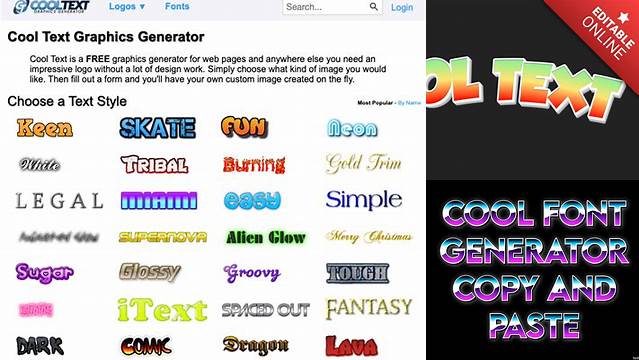
Free Font Word Generator: Create Cool Text Online
Hey guys! Ever wanted to create some seriously cool text for your projects, social media, or just for fun? A free font word generator is exactly what you need! These nifty tools allow you to transform ordinary text into eye-catching designs with just a few clicks. Let's dive into the world of free font word generators and explore everything you need to know to make your text stand out.
1. Understanding Free Font Word Generators
So, what exactly is a free font word generator? Essentially, it's an online tool that lets you type in any text and then apply various fonts, styles, and effects to it. Think of it like a digital font playground where you can experiment with different looks until you find the perfect match for your message. These generators are super user-friendly, often requiring no design skills whatsoever. You just type, click, and voilà , instant awesome text! One of the best things about using a free font word generator is the sheer variety available. Whether you’re looking for something elegant and sophisticated, bold and modern, or quirky and fun, there’s a font out there for you. Plus, many generators offer customization options, allowing you to tweak the size, color, and even add special effects like shadows or outlines. This level of control means you can really personalize your text to fit your unique style. Furthermore, free font word generators are incredibly accessible. Most of them are web-based, meaning you don’t need to download any software or install anything on your computer. Just head to the website, start typing, and let your creativity flow! This makes them perfect for quick projects or when you’re working on the go. The ease of use and accessibility of these tools makes them a go-to resource for anyone looking to add a little flair to their text.
2. Benefits of Using a Free Font Word Generator
Using a free font word generator comes with a plethora of benefits. First and foremost, it saves you a ton of time and effort. Instead of manually searching for and downloading fonts, you can instantly preview hundreds of options right in your browser. This is a game-changer, especially when you’re working on a tight deadline. Another major benefit is the cost savings. Many premium fonts come with hefty price tags, but with a free font word generator, you can access a wide range of high-quality fonts without spending a dime. This is particularly useful for small businesses or individuals who are just starting out and need to keep their expenses down. Beyond the practical advantages, a free font word generator also sparks creativity. By experimenting with different fonts and styles, you can discover new ways to express your ideas and make your content more engaging. It’s like having a digital sandbox where you can play around and see what works best. Moreover, these generators often come with additional design features, such as the ability to add backgrounds, borders, or even create logos. This makes them a versatile tool for a variety of projects, from creating social media graphics to designing invitations. In essence, a free font word generator is more than just a font selector; it’s a creative hub that empowers you to bring your text to life.
3. Choosing the Right Generator
With so many free font word generators available online, how do you choose the right one for your needs? The first thing to consider is the range of fonts offered. Look for a generator that has a diverse selection, including different styles, weights, and languages. This will ensure that you have plenty of options to choose from and can find the perfect font for your project. Another important factor is the ease of use. A good free font word generator should have a simple and intuitive interface that’s easy to navigate, even if you’re not a design expert. Look for features like live previews, customizable settings, and clear instructions. Also, consider the output options. Can you download the generated text as an image? Can you copy and paste it directly into your documents or social media posts? The more flexible the output options, the more versatile the generator will be. Furthermore, it’s worth checking whether the generator offers any additional design tools or features. Some generators include options for adding backgrounds, borders, or even creating simple graphics. These extra features can be a great bonus and make the generator even more useful. Finally, don’t forget to read reviews and testimonials from other users. This can give you valuable insights into the quality and reliability of the generator, as well as any potential drawbacks.
4. Best Free Font Word Generator Websites
Alright, let's dive into some of the best free font word generator websites out there! There are tons of options, but here are a few that consistently get high marks for their font selection, ease of use, and overall functionality. First up is Cool Text. It's a classic for a reason – it offers a huge library of fonts and styles, along with plenty of customization options. Plus, it's super easy to use, even if you're not a design whiz. Another great option is Font Meme. This site is packed with fonts inspired by popular brands and logos, making it perfect for creating eye-catching visuals. It also has a user-friendly interface and lets you download your creations in various formats. If you're looking for something a bit more modern and sleek, check out FlamingText. This generator offers a wide range of stylish fonts and effects, with a focus on creating professional-looking text. It's great for designing logos, banners, and other marketing materials. Lastly, don't forget about Online Text Effects. This site has a ton of unique and creative font options, along with tools for adding shadows, outlines, and other special effects. It's a fun and versatile option for anyone looking to experiment with different styles. These websites provide a fantastic starting point for your font adventures! Remember to explore each one and see which best fits your needs and creative vision.
5. How to Use a Free Font Word Generator
Okay, so you've picked your free font word generator. Now what? Don't worry, using these tools is usually super straightforward! First, you'll want to head to the website and look for the text input area. This is where you'll type in the words or phrases you want to stylize. Once you've entered your text, the real fun begins! Most generators will have a list or grid of fonts for you to choose from. Simply click on a font to see a live preview of how your text will look. Play around with different fonts until you find one that you love. After you've chosen a font, you can usually customize it further. Look for options to change the size, color, and spacing of your text. Some generators even let you add special effects like shadows, outlines, or gradients. Don't be afraid to experiment and try different combinations until you achieve the perfect look. Once you're happy with your design, it's time to save or download it. Most generators will let you download your text as an image file (like a PNG or JPG). Others might give you the option to copy and paste the text directly into your documents or social media posts. Choose the option that works best for your needs. And that's it! You've successfully used a free font word generator to create some awesome text. Now go out there and impress your friends, followers, and colleagues with your newfound design skills!
6. Fonts for Logos
When it comes to logo design, selecting the right font is crucial. Your logo is the face of your brand, and the font you choose can convey a wide range of emotions and messages. For example, a strong, bold font can project confidence and authority, while a delicate, elegant font can evoke feelings of sophistication and grace. One popular font choice for logos is sans-serif fonts like Helvetica or Arial. These fonts are clean, modern, and easy to read, making them a great choice for businesses that want to project a sense of simplicity and professionalism. Another option is serif fonts like Times New Roman or Garamond. These fonts have a more traditional look and feel, making them suitable for brands that want to convey a sense of history or trustworthiness. In addition to the basic font type, you'll also want to consider the weight and style of the font. A heavier font weight can make your logo stand out, while a lighter weight can create a more subtle and refined look. You can also experiment with different font styles, such as italics or condensed fonts, to add visual interest and personality to your logo. Keep in mind that your font should be legible and scalable, meaning it should look good both large and small. This is especially important if your logo will be used on a variety of different media, such as business cards, websites, and signage. In general, it's best to avoid using overly decorative or complicated fonts in your logo, as these can be difficult to read and may not translate well across different platforms.
7. Fonts for Social Media
Social media is all about grabbing attention, and using the right fonts can help you do just that. Whether you're creating posts, stories, or ads, the fonts you choose can have a big impact on how your content is perceived. When selecting fonts for social media, it's important to keep your target audience in mind. Are you trying to appeal to a young, hip crowd? Or are you targeting a more mature and professional audience? Your font choices should reflect the preferences and expectations of your target demographic. For example, if you're targeting a younger audience, you might want to use playful, modern fonts like Montserrat or Open Sans. These fonts are clean, fresh, and easy to read, making them a great choice for social media posts and stories. If you're targeting a more professional audience, you might want to use more classic and sophisticated fonts like Garamond or Times New Roman. These fonts convey a sense of authority and credibility, making them suitable for business-related content. In addition to the font type, you'll also want to consider the size and color of your text. Make sure your text is large enough to be easily read on small screens, and use colors that contrast well with your background. You can also use bolding, italics, and other formatting options to emphasize important words and phrases. Remember that consistency is key when it comes to branding. Use the same fonts and styles across all of your social media channels to create a cohesive and recognizable brand identity. This will help your audience easily identify your content and remember your brand.
8. Typography Tips for Beginners
If you're new to the world of typography, don't worry! It can seem overwhelming at first, but with a few basic tips and tricks, you can start creating beautiful and effective designs in no time. One of the most important typography tips for beginners is to choose the right font for your project. Consider the purpose of your design and the message you want to convey. Are you trying to create a serious and professional look? Or are you going for something more fun and playful? Your font choices should reflect the overall tone and style of your design. Another important tip is to pay attention to the spacing between your letters and lines. Proper spacing can make your text much easier to read and more visually appealing. Use kerning to adjust the spacing between individual letters, and use leading to adjust the spacing between lines of text. You should also be mindful of the contrast between your text and background. Make sure your text is easy to read against your background, and use colors that complement each other. Avoid using colors that are too similar, as this can make your text difficult to see. Experiment with different font sizes and styles to create visual hierarchy in your designs. Use larger fonts for headings and subheadings, and smaller fonts for body text. You can also use bolding, italics, and other formatting options to emphasize important words and phrases. Finally, don't be afraid to experiment and try new things. Typography is a skill that takes time and practice to master, so don't get discouraged if your first few designs aren't perfect. Just keep learning and experimenting, and you'll eventually develop your own unique style.
9. Font Pairing Strategies
Font pairing is the art of combining two or more fonts in a way that is both visually appealing and effective. When done well, font pairing can elevate your designs and make them more engaging. However, when done poorly, it can create a confusing and unprofessional look. One common font pairing strategy is to combine a serif font with a sans-serif font. This creates a nice contrast and can help to differentiate between headings and body text. For example, you could pair a serif font like Garamond with a sans-serif font like Helvetica. Another popular strategy is to pair fonts from the same family. This creates a harmonious and cohesive look, as the fonts share similar characteristics. For example, you could pair different weights of the same font, such as bold and regular. You can also pair fonts that have complementary personalities. For example, you could pair a serious and professional font with a more playful and whimsical font. This can create a dynamic and engaging design that captures the reader's attention. When pairing fonts, it's important to consider the overall tone and style of your design. Make sure your font choices are appropriate for the project and that they convey the message you want to send. It's also important to limit the number of fonts you use in a design. Using too many fonts can create a cluttered and confusing look. In general, it's best to stick to two or three fonts at most. Finally, don't be afraid to experiment and try new things. Font pairing is a skill that takes time and practice to master, so don't get discouraged if your first few attempts aren't perfect. Just keep learning and experimenting, and you'll eventually develop your own unique style.
10. Creating Custom Fonts
Feeling adventurous? Why not try creating your own custom fonts? While it might sound intimidating, it's actually quite accessible with the right tools and resources. Designing your own font allows you to create a truly unique and personalized look for your projects. There are several software programs available for creating custom fonts, ranging from free and open-source options to more professional and feature-rich applications. Some popular choices include FontForge, Glyphs, and FontLab Studio. These programs provide you with the tools you need to draw and edit each character in your font, as well as adjust the spacing and kerning. Before you start designing, it's helpful to sketch out your ideas and plan the overall style and personality of your font. Consider the purpose of your font and the message you want to convey. Are you creating a bold and modern font for headlines? Or a delicate and elegant font for body text? Once you have a clear vision, you can start creating the individual characters. Pay attention to the details and try to maintain consistency throughout the font. After you've created all the characters, you'll need to adjust the spacing and kerning to ensure that the font is easy to read. This can be a time-consuming process, but it's essential for creating a professional-looking font. Finally, you can test your font in different applications and make any necessary adjustments. Once you're happy with the results, you can export your font in a variety of formats, such as TTF or OTF. Creating your own custom fonts can be a challenging but rewarding experience. It allows you to express your creativity and create designs that are truly unique and personalized.
11. Font Licensing Explained
Okay, let's talk about something that might not be the most exciting, but it's super important: font licensing. Understanding font licenses is crucial to avoid legal issues and ensure you're using fonts correctly. Basically, a font license is a legal agreement that outlines how you can use a particular font. It specifies things like whether you can use the font for commercial purposes, whether you can embed it in documents or software, and whether you can modify or redistribute it. There are different types of font licenses, ranging from free and open-source licenses to more restrictive commercial licenses. Free licenses often allow you to use the font for both personal and commercial projects, but they may have certain restrictions, such as requiring attribution to the font designer. Commercial licenses, on the other hand, typically require you to pay a fee for the right to use the font. The fee may vary depending on the intended use of the font, such as whether it's for a single project or for unlimited use. It's important to carefully read the font license before using a font to ensure that you're complying with the terms of the agreement. If you're unsure about the terms of a license, it's always best to err on the side of caution and contact the font designer or foundry for clarification. Using a font without the proper license can result in legal action, so it's always better to be safe than sorry. In general, it's a good idea to keep track of the fonts you're using in your projects and the licenses associated with them. This will help you stay organized and avoid any potential legal issues.
12. The Psychology of Fonts
Did you know that fonts can actually influence how people perceive your message? It's true! Fonts have a psychology of their own, and choosing the right font can have a significant impact on your designs. Different fonts evoke different emotions and associations. For example, serif fonts like Times New Roman or Garamond are often associated with tradition, authority, and sophistication. They tend to convey a sense of trustworthiness and reliability, making them a good choice for formal documents and business communications. Sans-serif fonts like Helvetica or Arial, on the other hand, are often associated with modernity, simplicity, and cleanliness. They tend to convey a sense of openness and accessibility, making them a good choice for websites and digital interfaces. Script fonts like Brush Script or Pacifico are often associated with creativity, elegance, and femininity. They tend to convey a sense of personality and flair, making them a good choice for invitations and greeting cards. Decorative fonts like Comic Sans or Papyrus are often associated with fun, whimsy, and informality. They tend to convey a sense of playfulness and approachability, but they should be used with caution, as they can also be seen as unprofessional or childish. When choosing a font for your project, it's important to consider the message you want to convey and the emotions you want to evoke. Think about your target audience and what they're likely to respond to. By understanding the psychology of fonts, you can make more informed design decisions and create designs that are both visually appealing and emotionally resonant.
13. Font Trends to Watch
The world of typography is constantly evolving, with new fonts and styles emerging all the time. Staying up-to-date on the latest font trends can help you keep your designs fresh and relevant. One trend to watch is the rise of variable fonts. Variable fonts are a new type of font that allows you to adjust various parameters, such as weight, width, and slant, using a single font file. This gives you a lot of flexibility and control over your typography, and it can also help to reduce file sizes. Another trend is the use of bold and oversized typography. This is a great way to make a statement and grab attention. Consider using a bold font for headlines and subheadings, and don't be afraid to make it really big. The use of hand-drawn and script fonts is also gaining popularity. These fonts add a personal and authentic touch to your designs, making them a great choice for branding and marketing materials. Another trend is the use of geometric and minimalist fonts. These fonts are clean, modern, and easy to read, making them a good choice for websites and digital interfaces. Finally, keep an eye on the use of color in typography. Experiment with different color combinations to create visual interest and make your text stand out. By staying informed about the latest font trends, you can keep your designs looking fresh and relevant. Don't be afraid to experiment and try new things, but always make sure that your font choices are appropriate for your project and target audience.
14. Kerning and Leading Explained
Kerning and leading are two fundamental concepts in typography that have a significant impact on the readability and visual appeal of your text. Kerning refers to the spacing between individual letters in a word. Adjusting the kerning can help to create a more even and balanced look, preventing letters from appearing too close together or too far apart. Leading, on the other hand, refers to the spacing between lines of text. Adjusting the leading can improve the readability of your text, making it easier for the eye to follow from one line to the next. When kerning, you should pay attention to the spaces between letters and try to make them as consistent as possible. Some letter combinations, such as